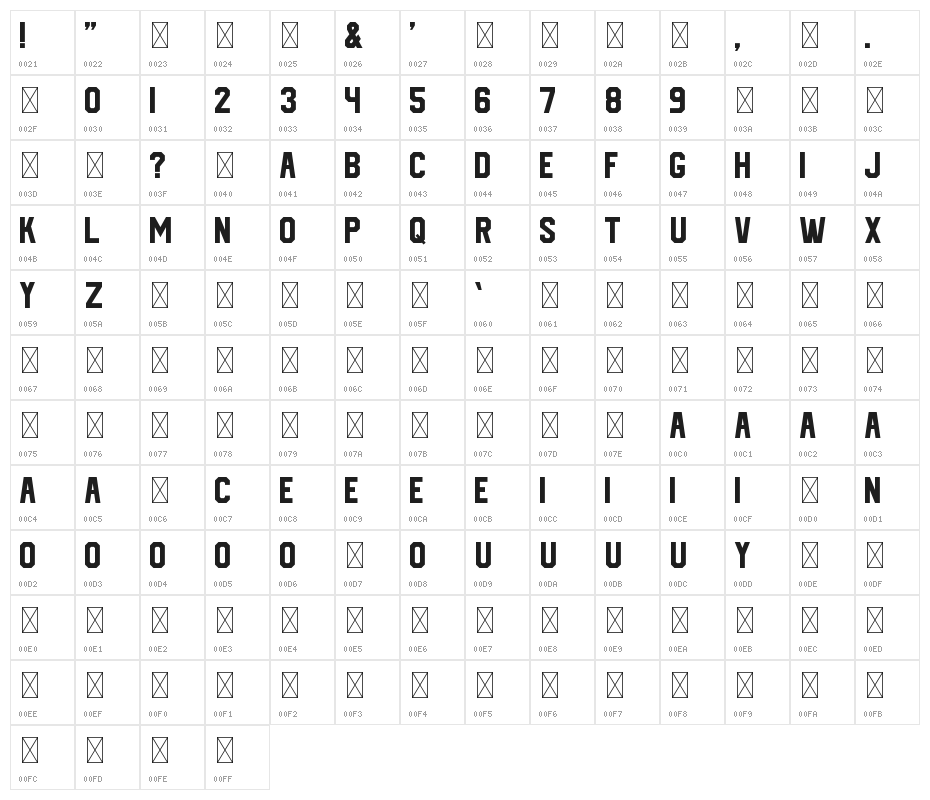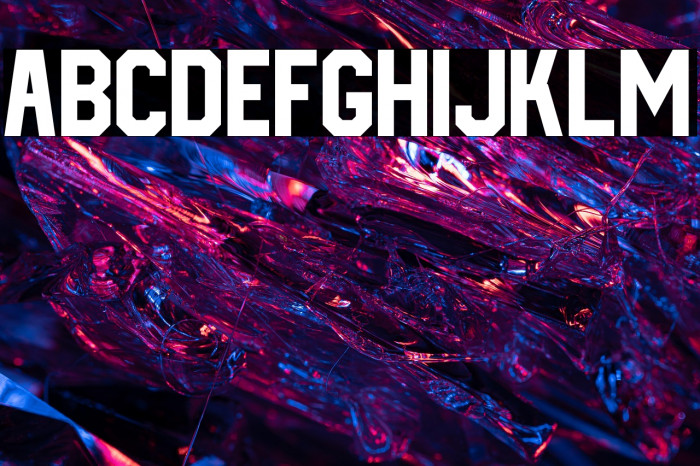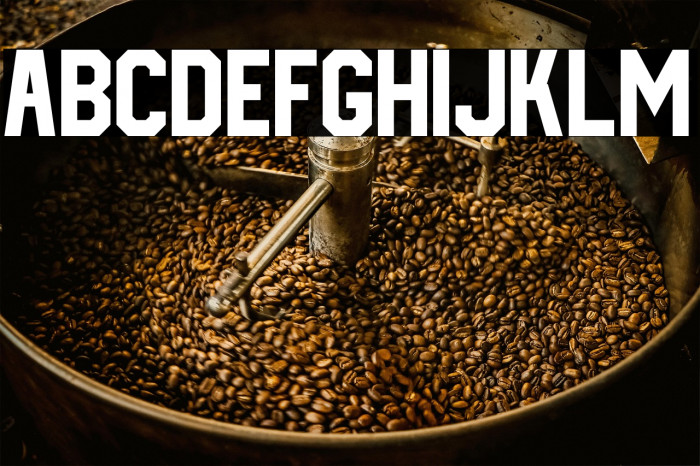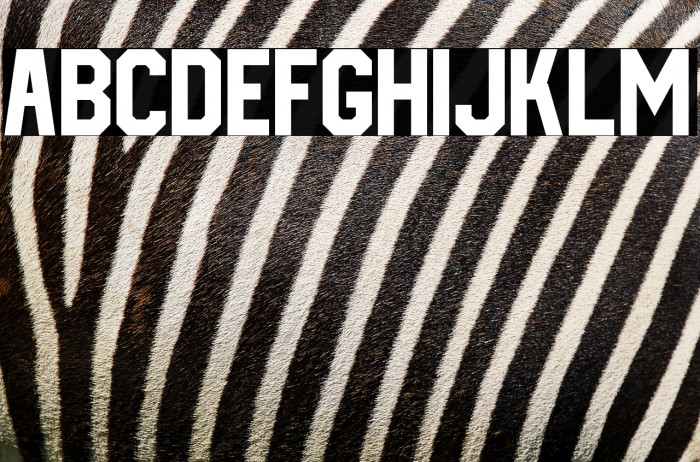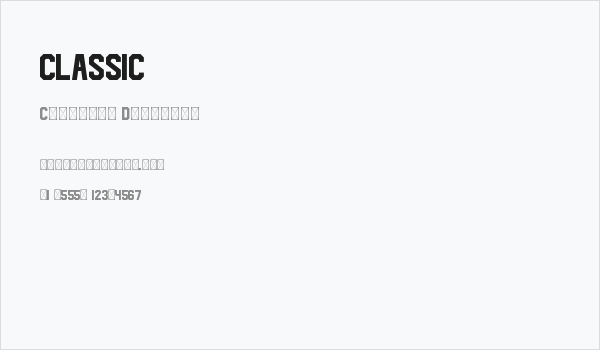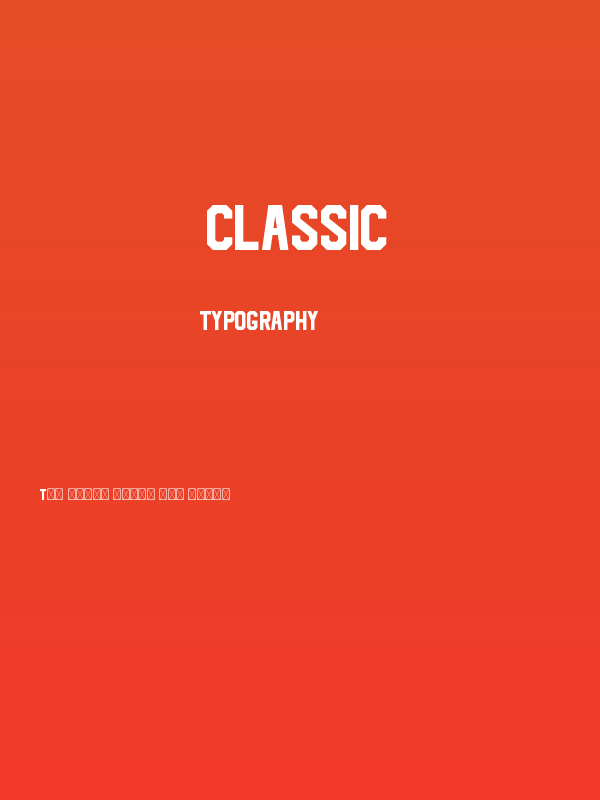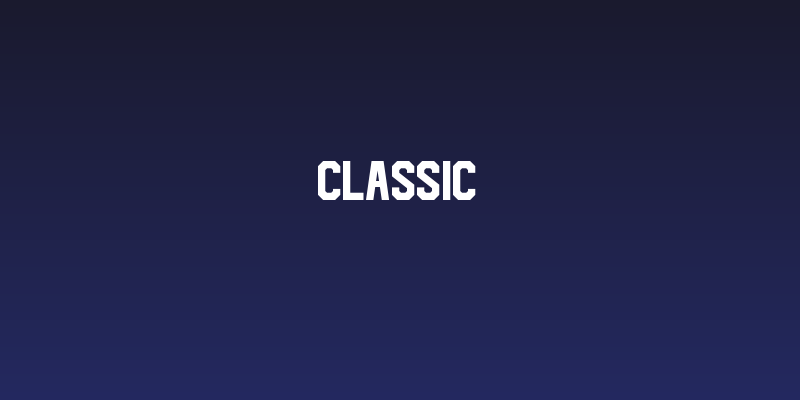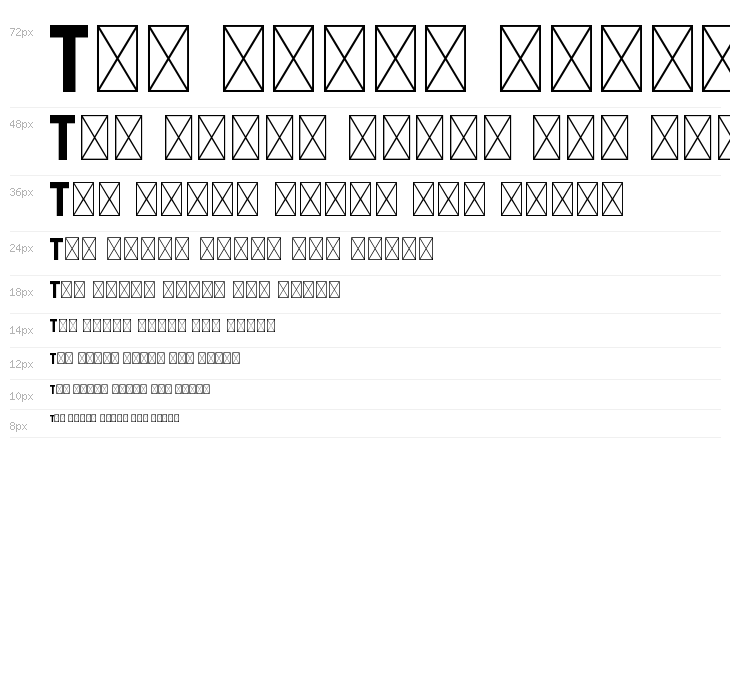
CLASSIC Font
CLASSIC Description
This font features a bold and geometric design, characterized by its strong, angular lines and a robust presence. The uppercase letters are uniform in height, with a consistent stroke width that gives it a solid and impactful appearance. The numbers follow the same bold style, ensuring readability and a cohesive look. The absence of lowercase letters and limited special characters suggest a focus on simplicity and clarity. This font is ideal for making a strong visual statement, with its clear and assertive style.
Proposed ProjectsIdeal for posters, headlines, branding, and signage where a strong visual impact is needed.